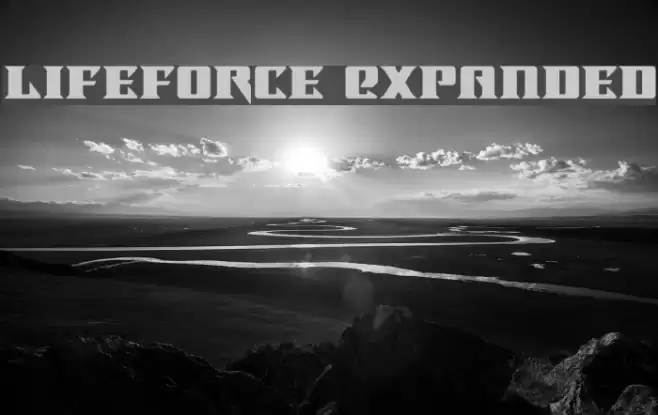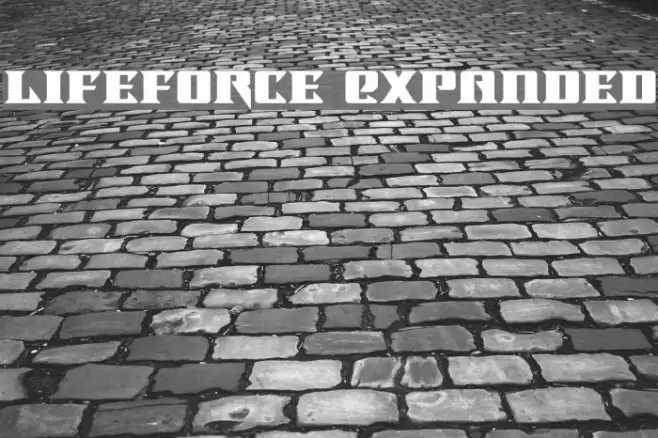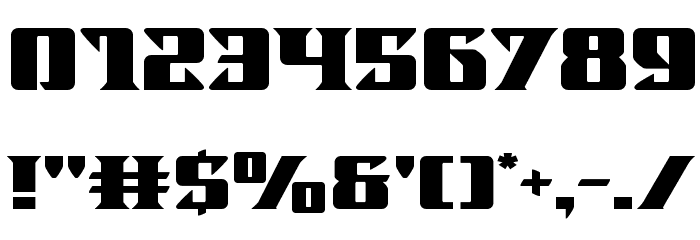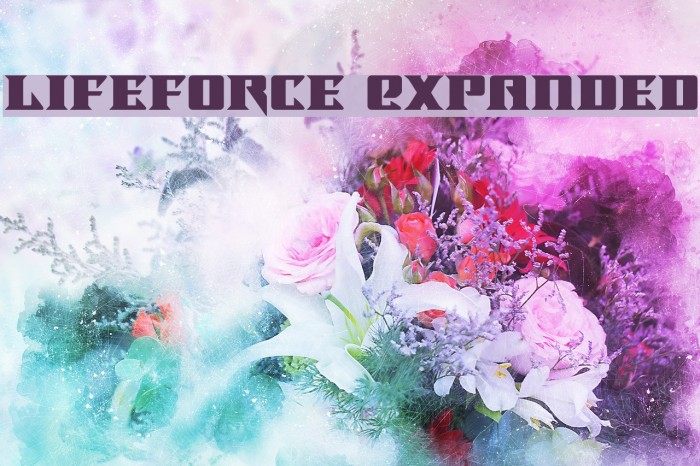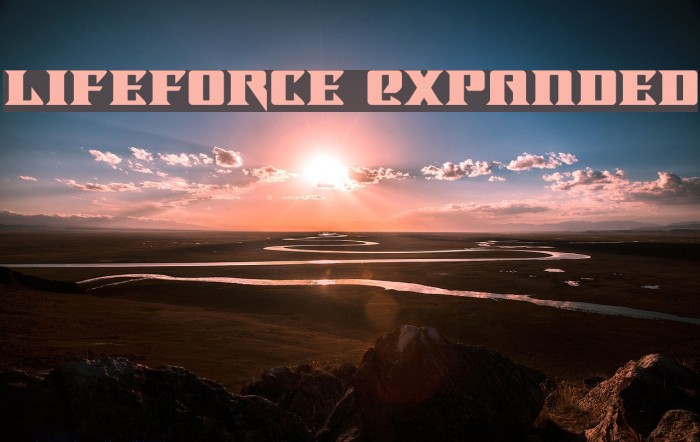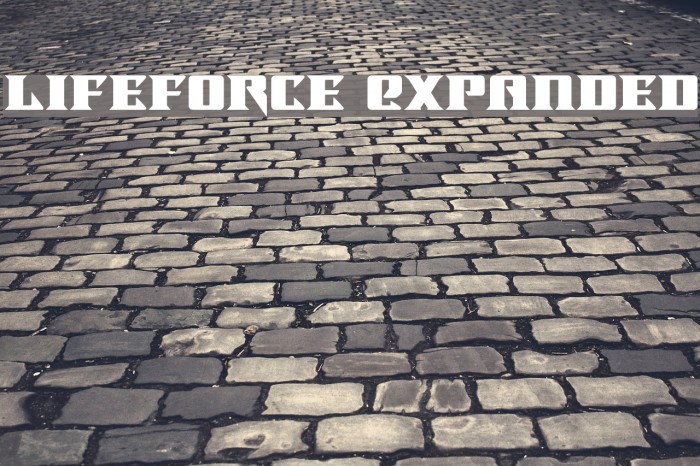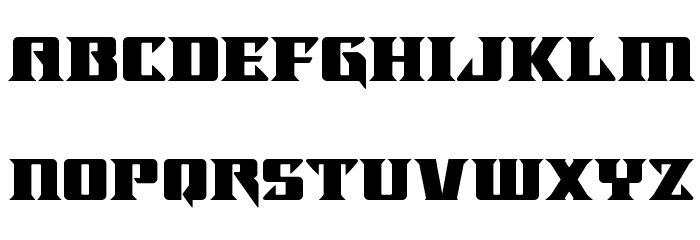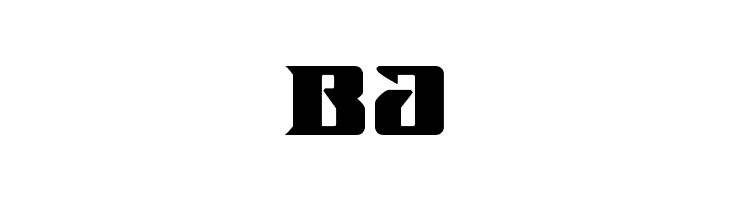
Lifeforce Expanded Font
Lifeforce Expanded Description
This font features a bold and striking design with angular, geometric shapes that give it a futuristic and dynamic appearance. The characters are constructed with sharp edges and a consistent thickness, creating a sense of uniformity and strength. The uppercase letters are particularly prominent, with a block-like structure that commands attention. The numbers and special characters maintain this bold style, ensuring a cohesive look across all elements. This font is ideal for projects that require a modern and impactful aesthetic.
A bold, angular font with a futuristic and dynamic style from Uncategorized fonts.
- Font: Lifeforce Expanded
- Weight: Expanded
- Proposed Projects: Perfect for sci-fi themed designs, video game titles, posters, and branding that requires a modern and bold look.
- Width: Expanded
- Overall Style: Futuristic, Modern